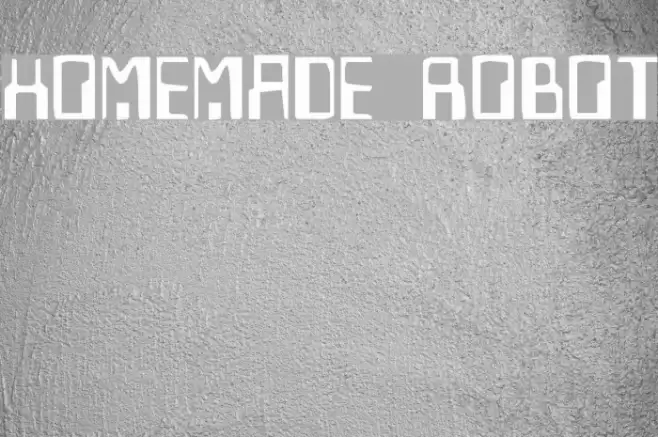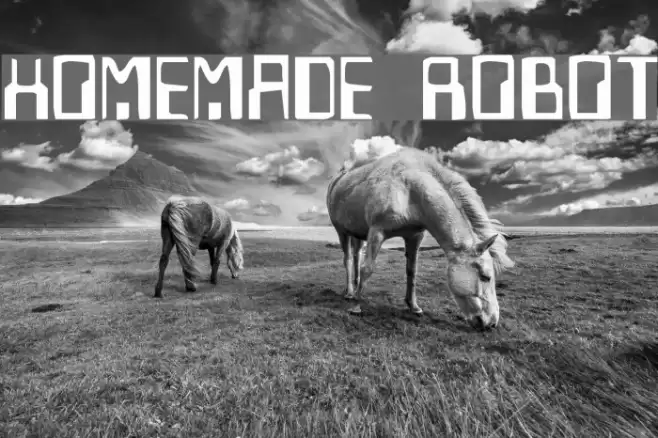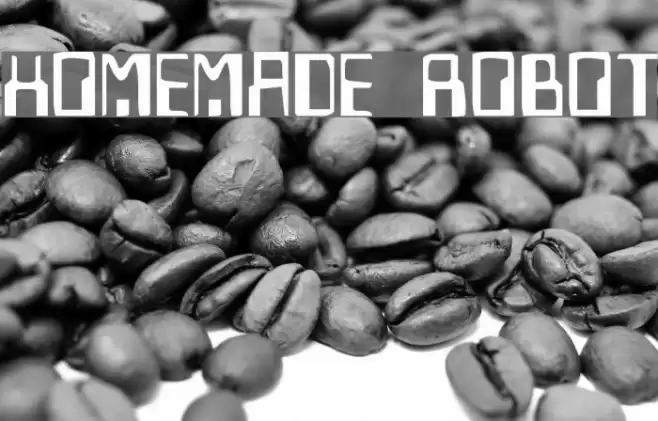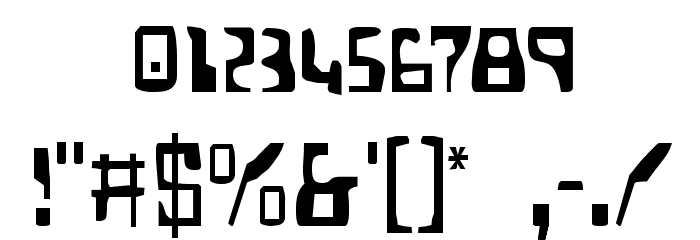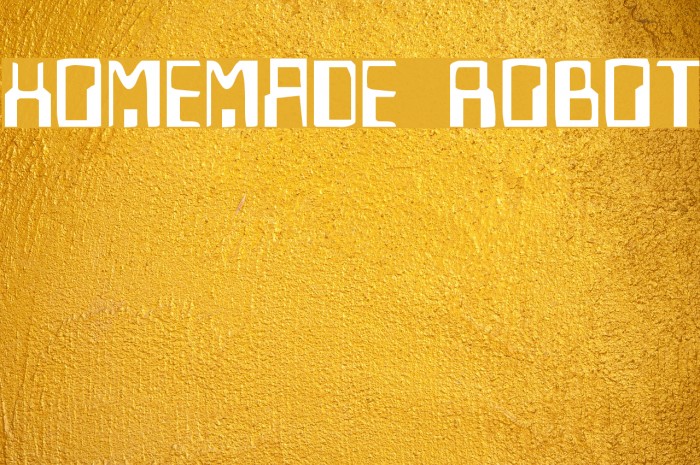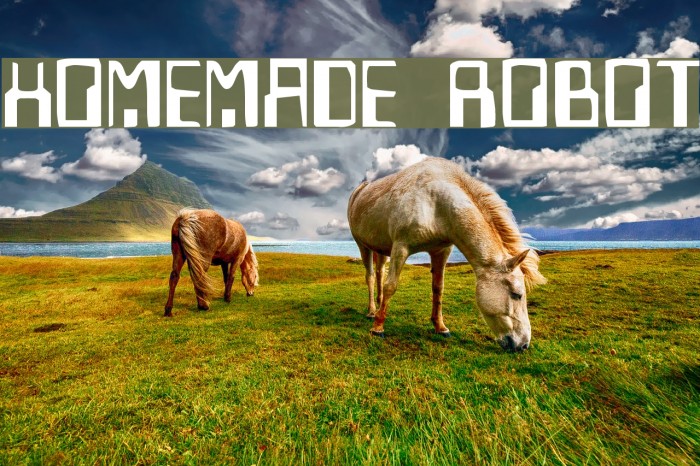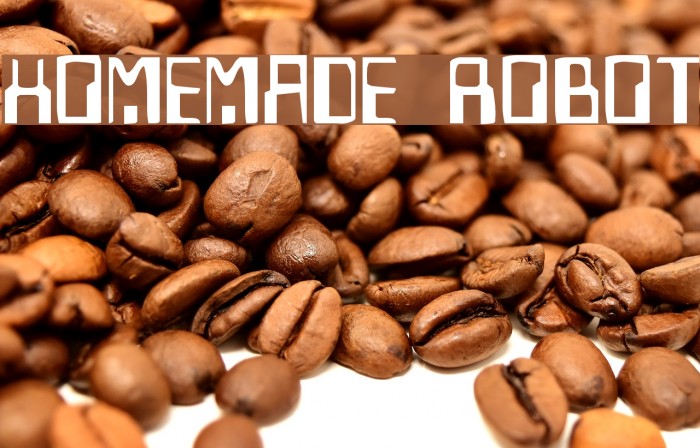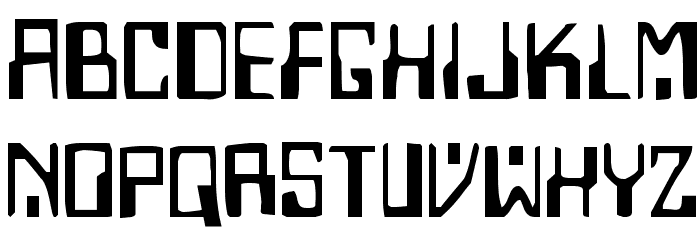
Homemade Robot Font
Homemade Robot Description
This font features a bold and geometric design with a futuristic and robotic aesthetic. The characters are constructed with angular shapes and sharp edges, giving them a mechanical appearance. The uppercase and lowercase letters maintain a consistent style, with a uniform height and width that enhances readability. The numbers and special characters are designed to match the overall theme, providing a cohesive look across all glyphs. The font's unique style makes it suitable for projects that require a modern and technological feel.
A bold, geometric font with a futuristic, robotic aesthetic from Broken fonts.
- Proposed Projects: Ideal for technology-themed projects, video game titles, sci-fi posters, and branding for tech companies.